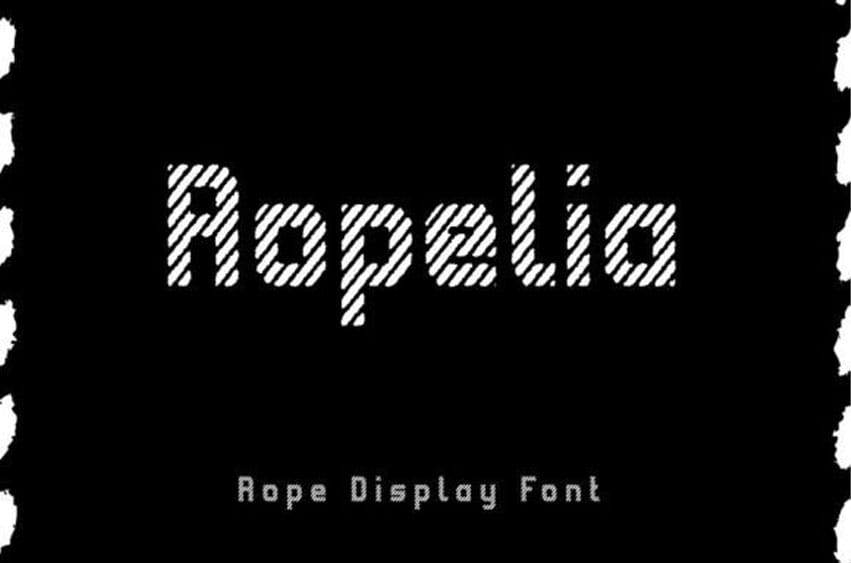
Ropelia Font is a modern, clean, and eye-catching display font ideal for posters, cards, book titles, headlines, news, banners, flyers, stationery, and many more.